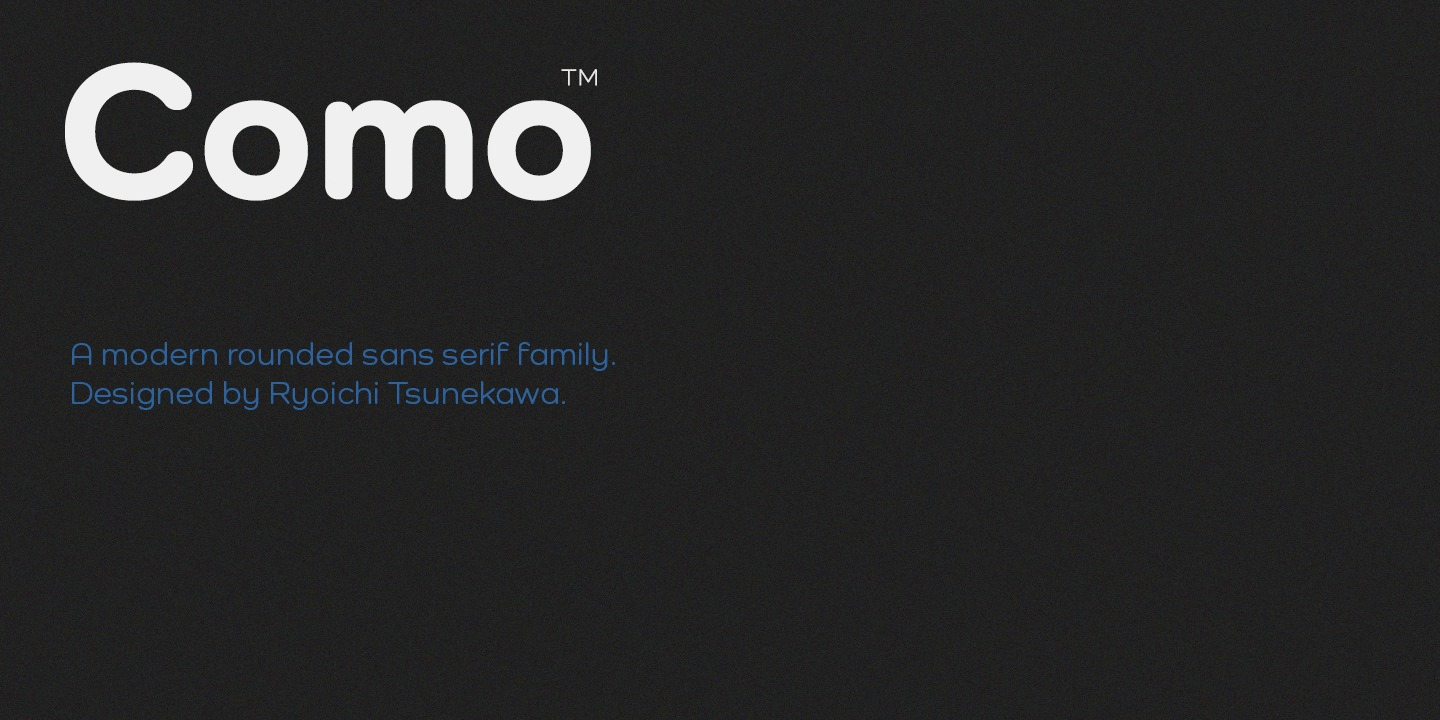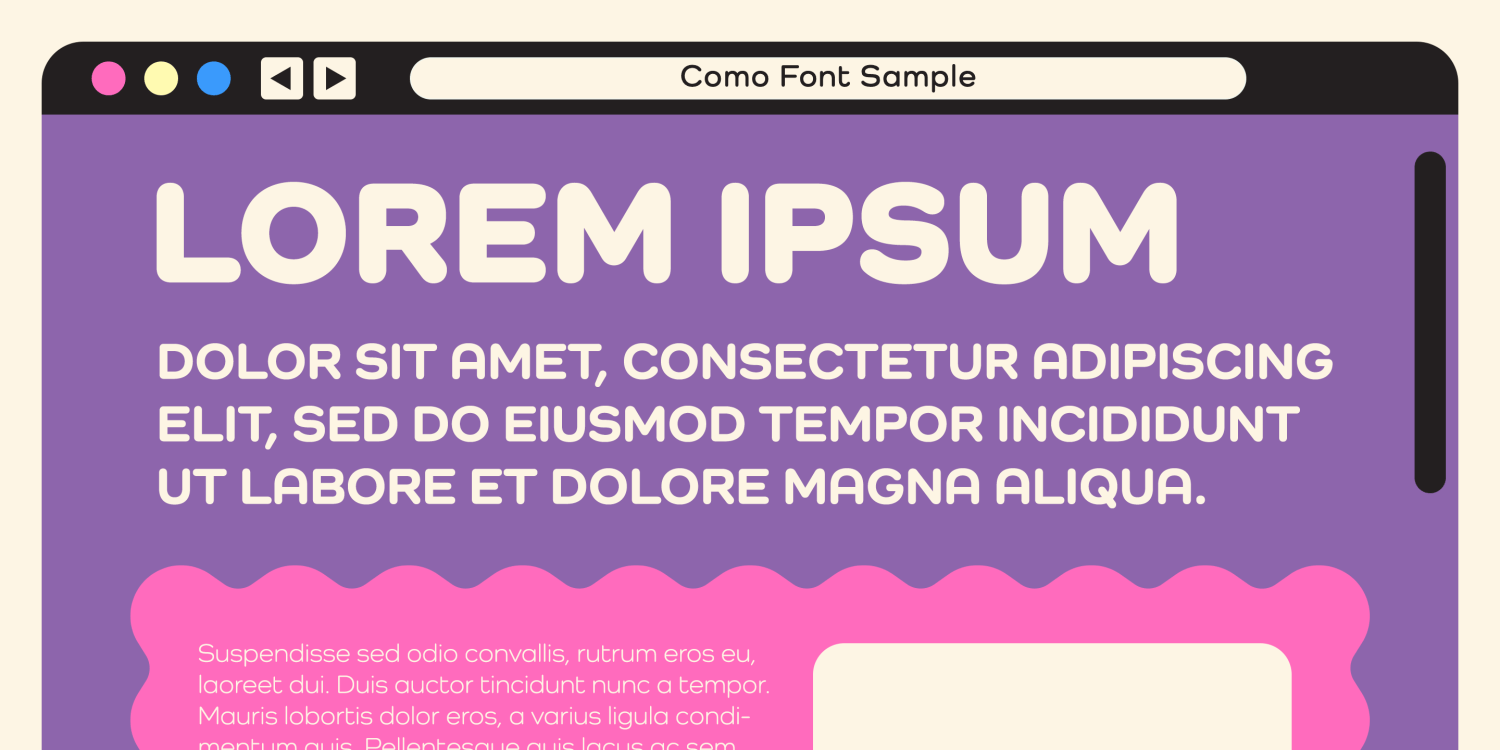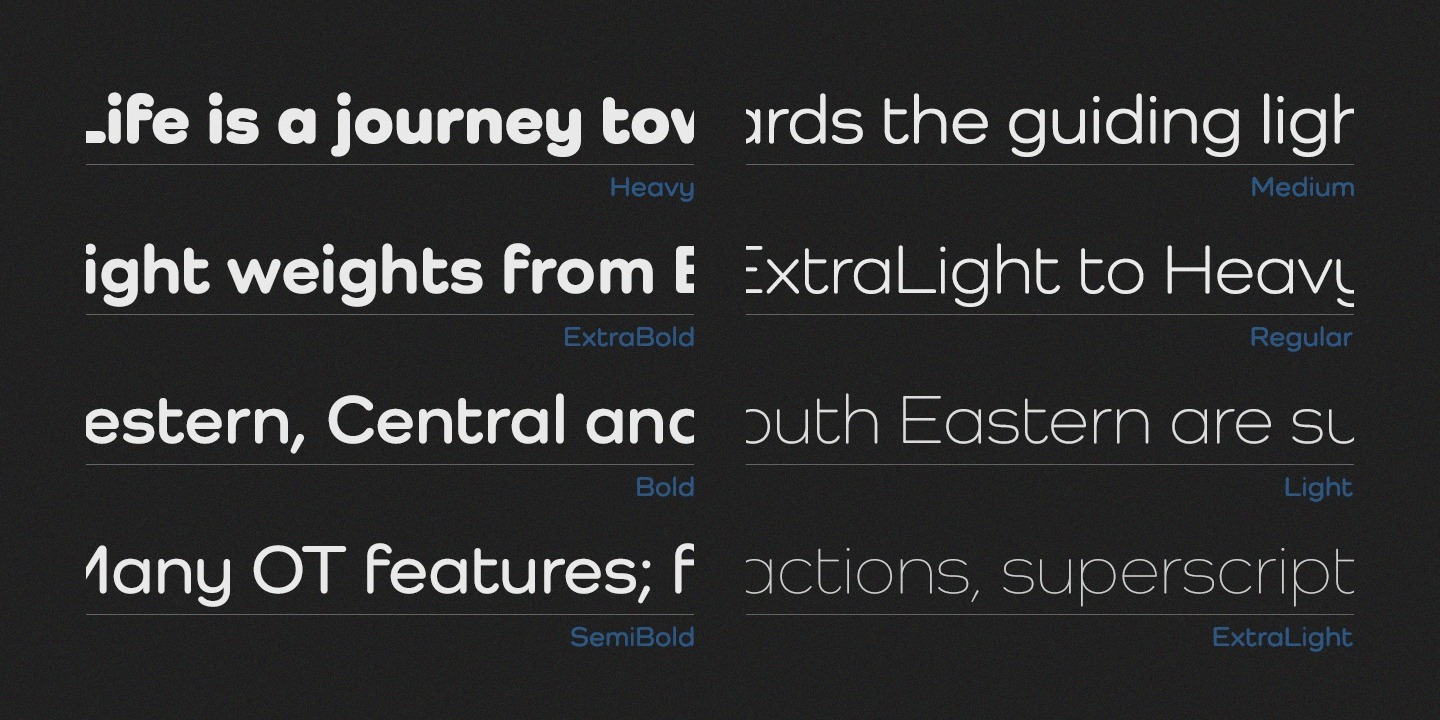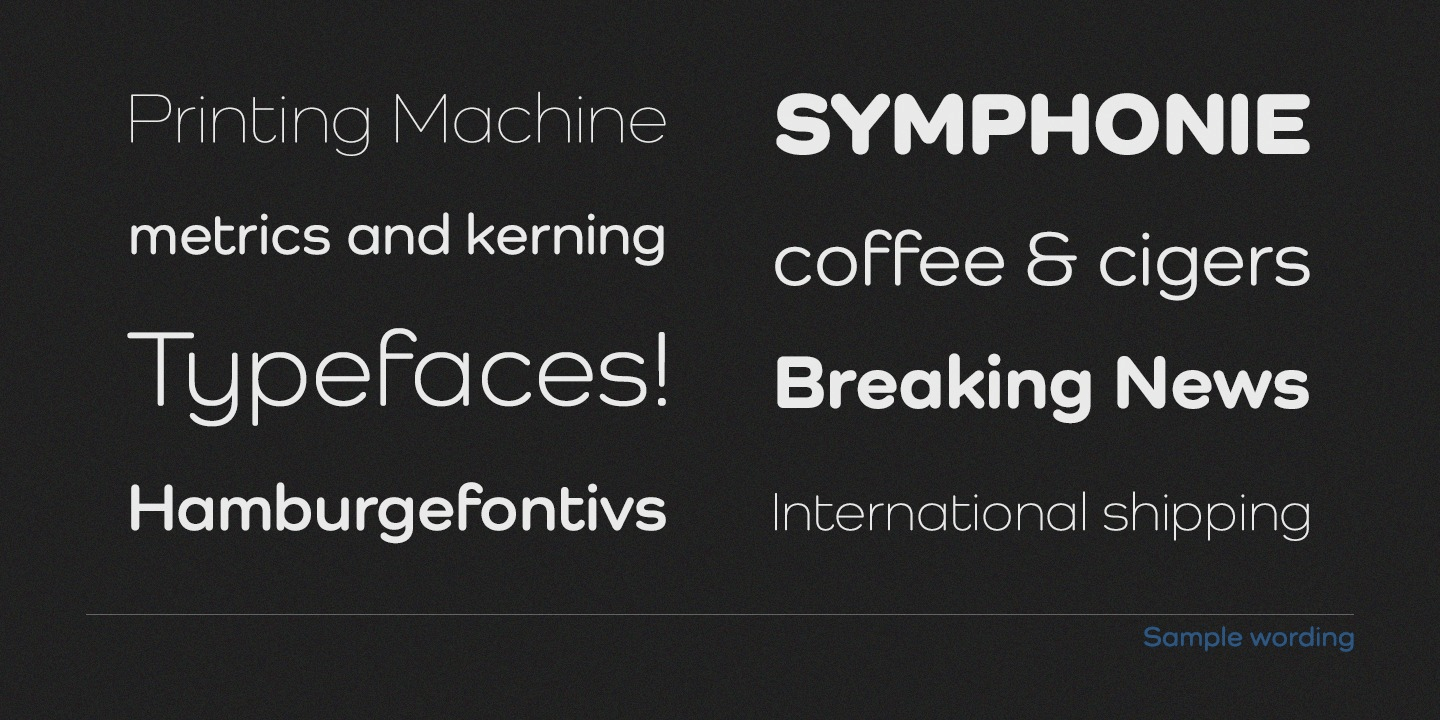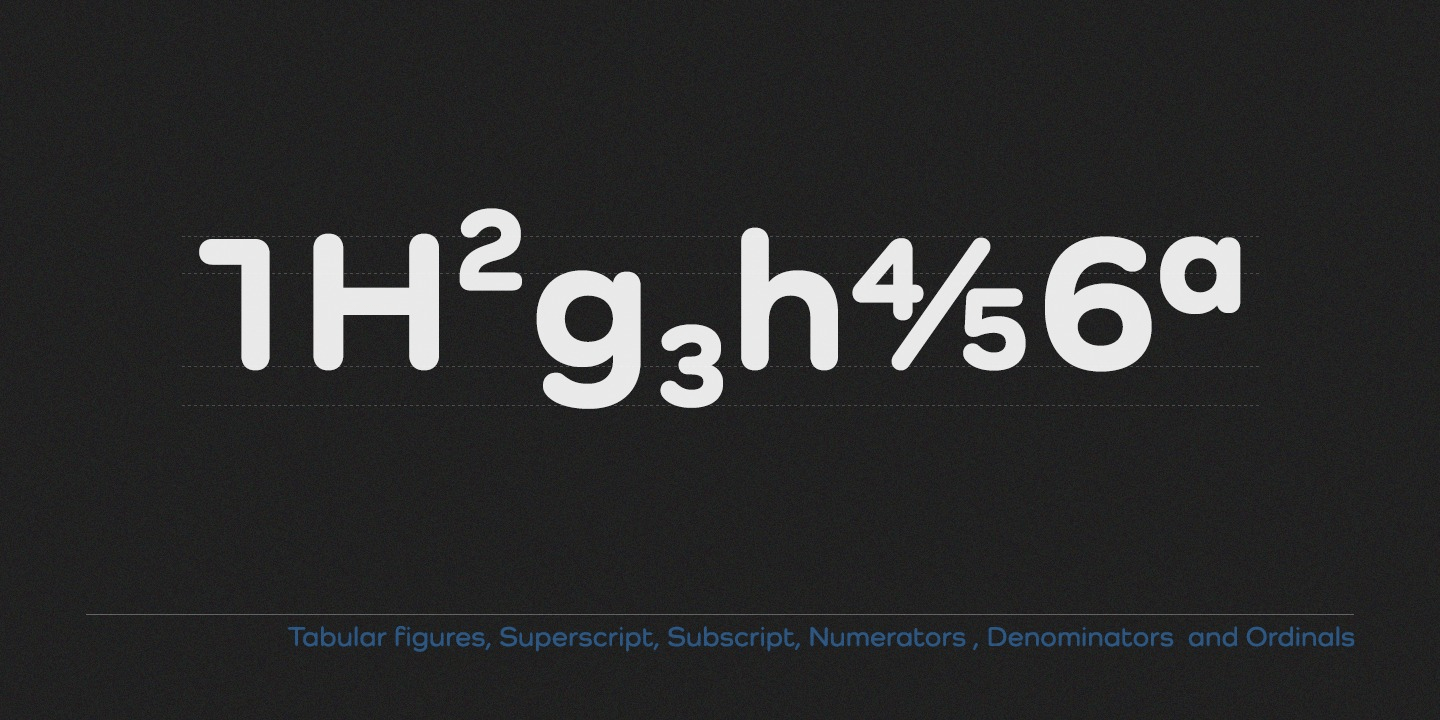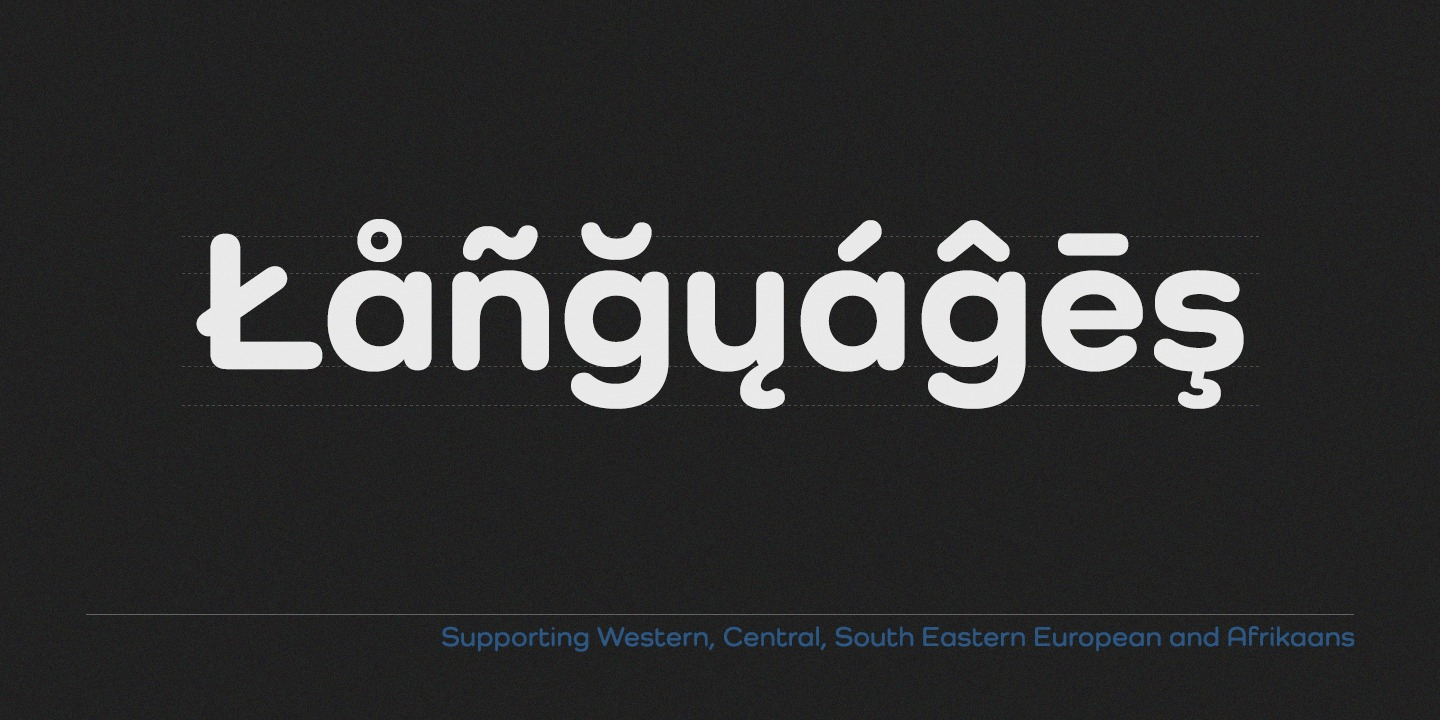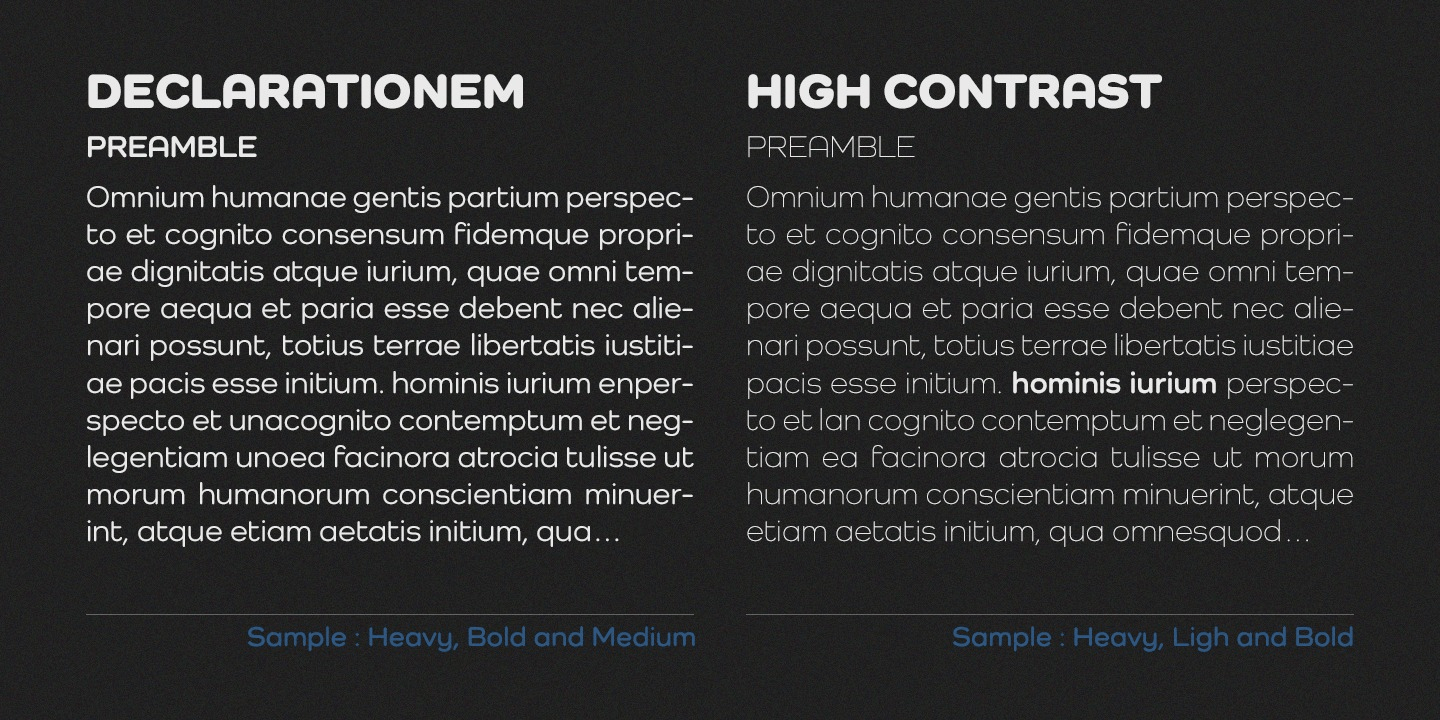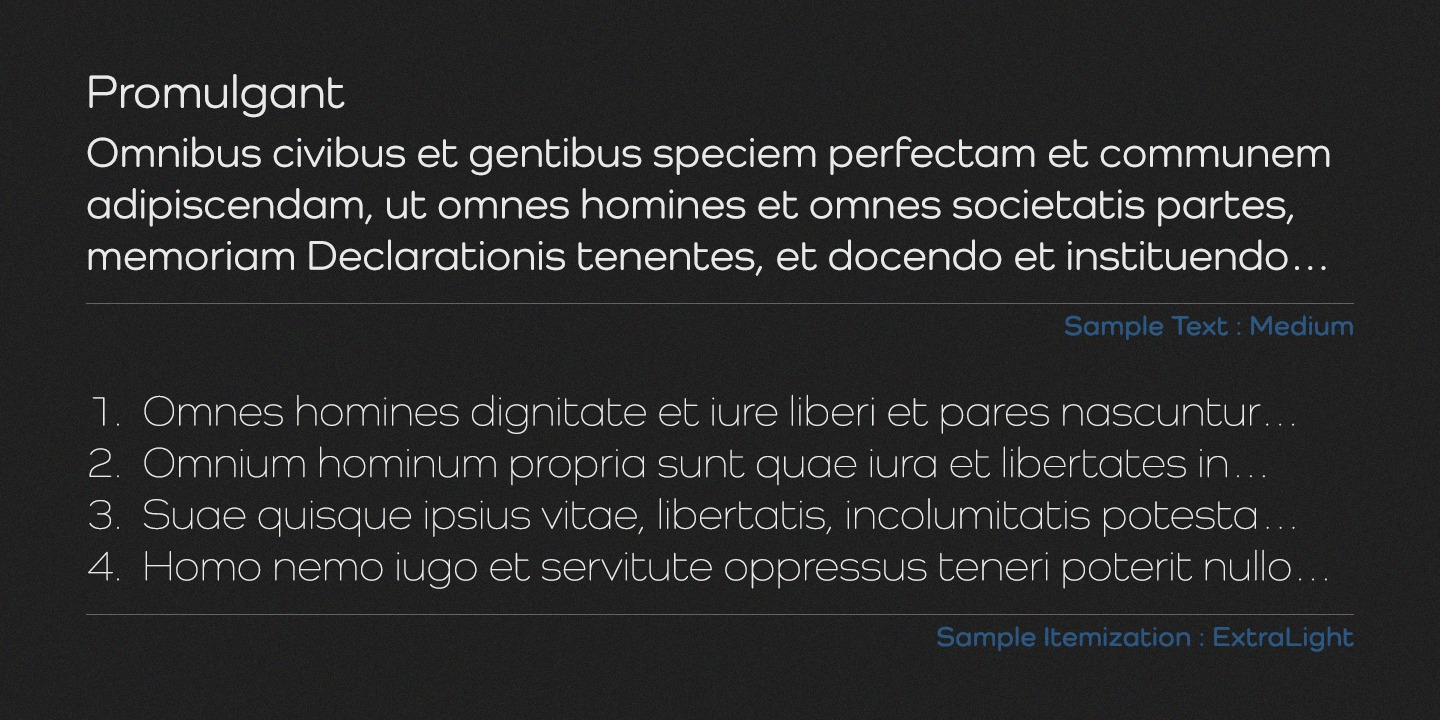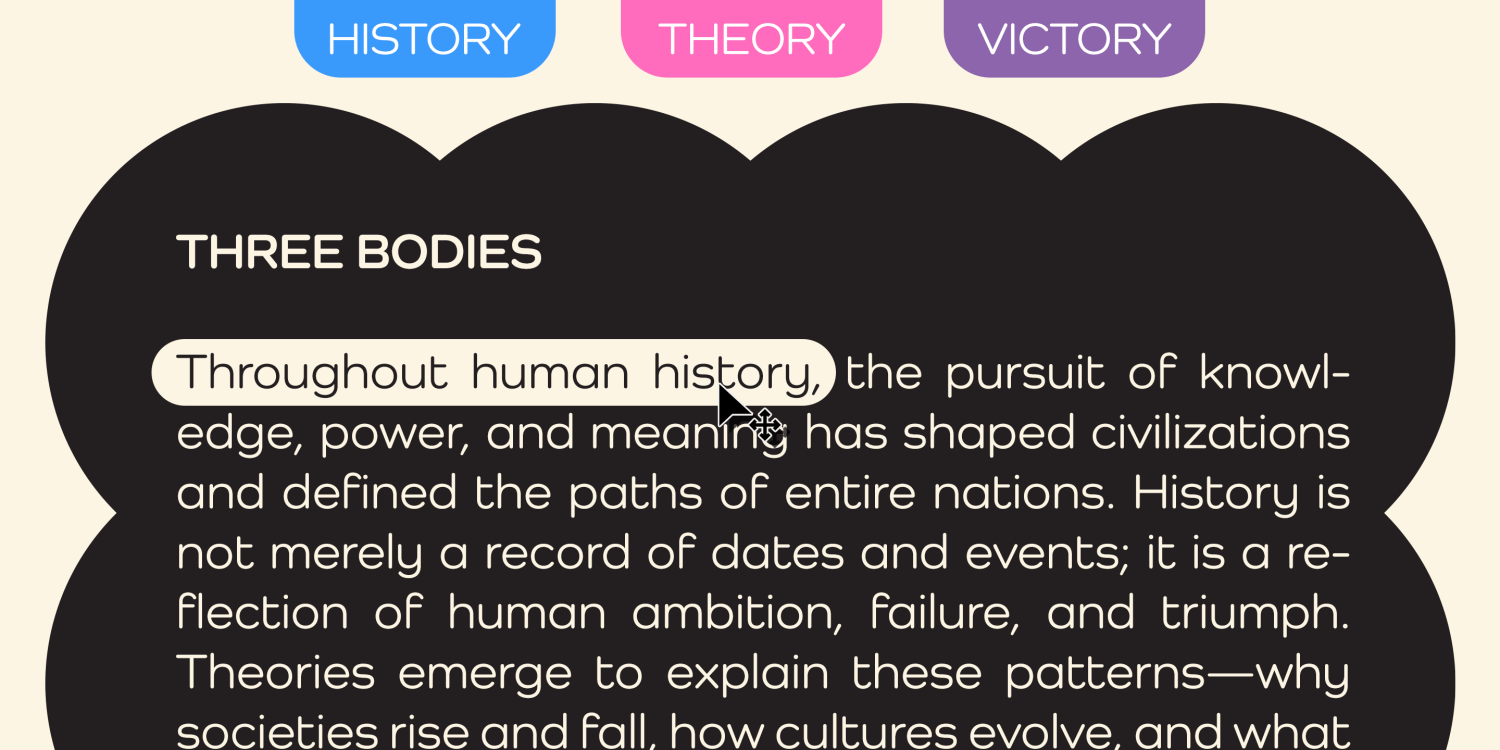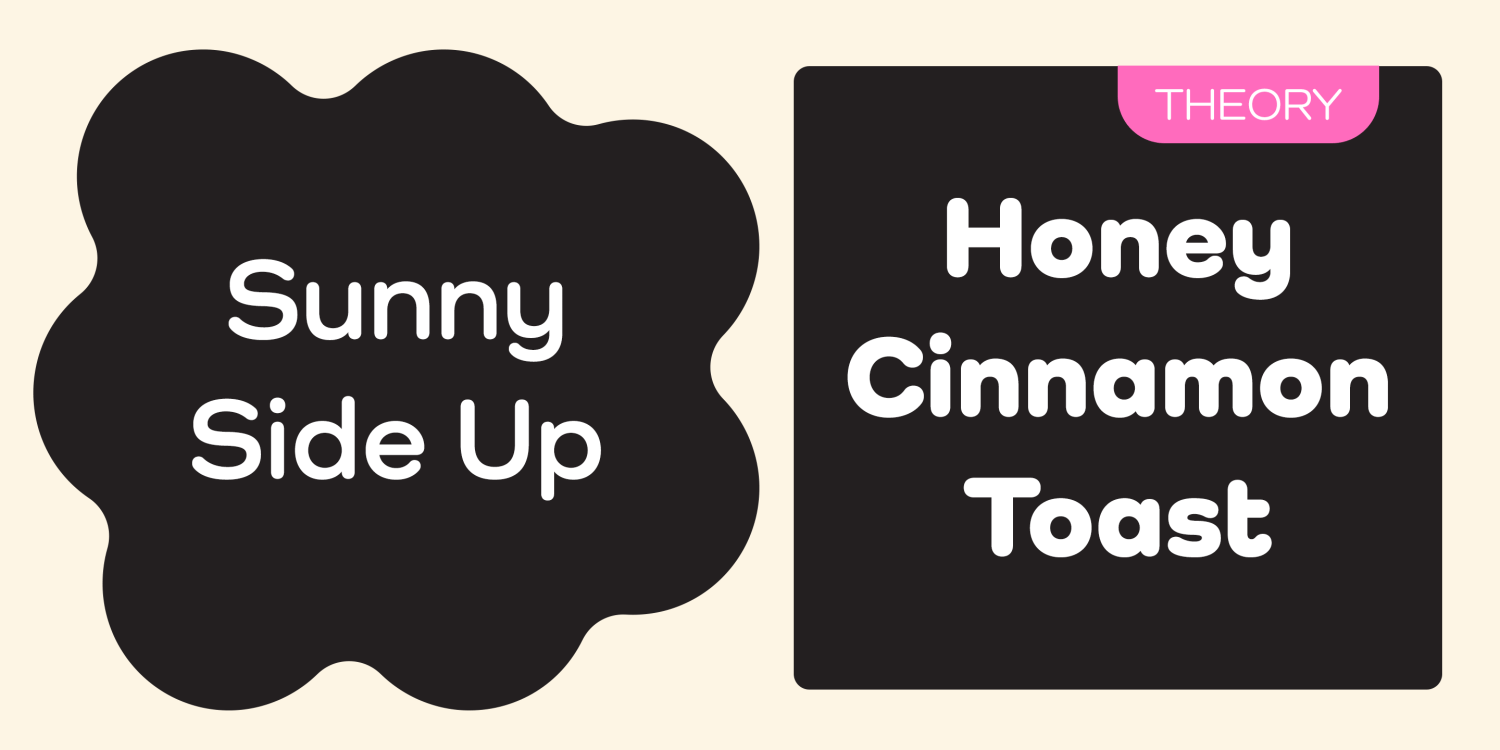
Como
Como is a modern rounded sans-serif type family designed by Ryoichi Tsunekawa, consisting of 8 weights from ExtraLight to Heavy.
Built on a geometric foundation, Como features rounded terminals that soften its structure, striking a balance between neutrality and warmth.
Its refined, minimal design ensures universality and consistency, making it suitable for all media and purposes—from digital interfaces to print materials.
The large x-height enhances legibility and readability, while the rounded edges add a friendly, approachable character that subtly enhances visual appeal without overwhelming the design.
Como supports Western, Central, and South Eastern European languages, as well as Afrikaans.
It also includes superior and inferior figures, denominators, numerators, and fractions, all accessible via OpenType features.